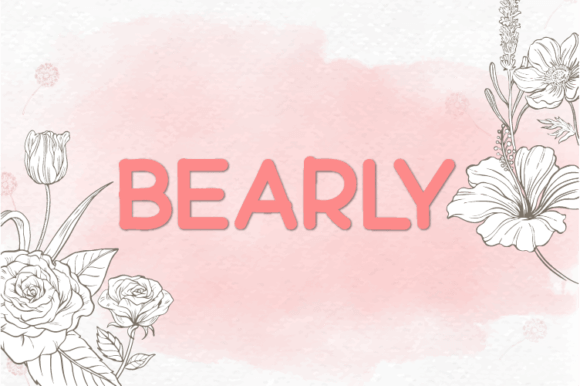
In a world of digital artistry, prepare to be captivated by Bearly Font, a sans serif masterpiece that dances across your screen with its whimsical charm. Crafted with precision by Becraft, this font is a symphony of creativity, ready to transform your designs into captivating works of art.
Bearly Font is more than just a collection of characters; it's an expression of individuality and joy, a window into the realm of imagination. Its playful strokes evoke a sense of wonder, inviting you to explore the boundless possibilities of artistic expression. Whether you're a seasoned designer or just starting your creative journey, Bearly Font will ignite your passion and elevate your designs to new heights.
With its effortless flow and captivating rhythm, Bearly Font effortlessly captures the essence of handwritten Qs. Each letter dances across the page, carrying with it a story, a whisper of emotions, a spark of inspiration. Experience the magic of Bearly Font, where every word you type becomes a captivating work of art, a testament to your unique style and creative vision.
Step into a realm where creativity knows no bounds, where imagination runs wild, and where Bearly Font becomes your trusted companion. Its versatility is unparalleled, adapting seamlessly to a myriad of projects, from heartfelt greeting cards to eye-catching presentations. Whether you're crafting digital designs, adding a personal touch to your blog, or creating stunning social media posts, Bearly Font will elevate your work to new heights.
Don't let ordinary fonts stifle your creativity; embrace the extraordinary with Bearly Font. Unleash your imagination, let your ideas flow freely, and watch as your designs blossom into masterpieces. Experience the joy of creating with Bearly Font, and let your projects come alive with its enchanting allure.